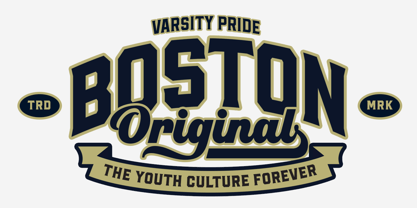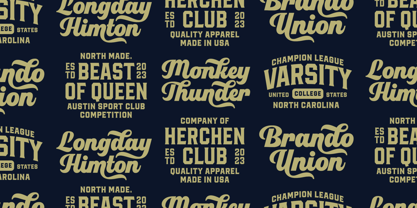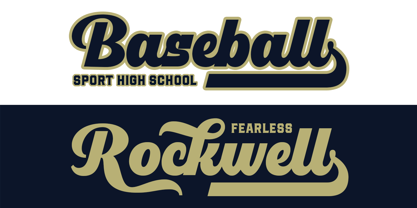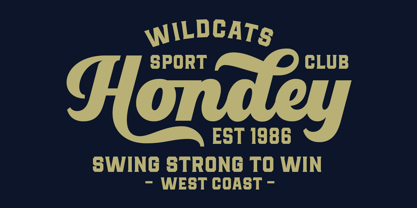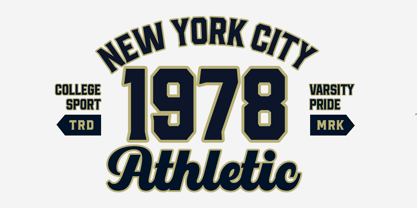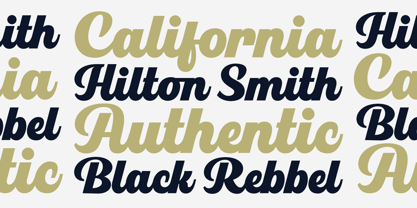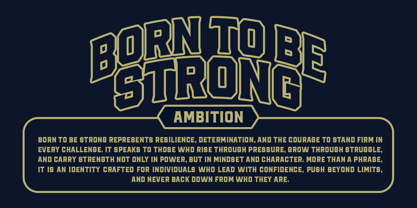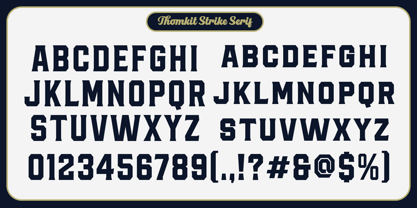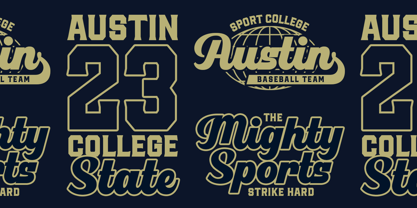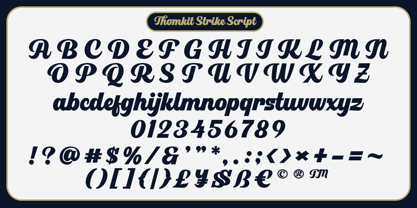
Thomkit Strike
La familia tipográfica Thomkit Strike fue diseñada por Bangkit Tri Setiadi y publicada por Blankids. Thomkit Strike contiene 2 estilos y opciones de paquete familiar. Más información sobre esta familia
Thomkit Strike is a bold and dynamic varsity font duo that combines a powerful sport serif display with a smooth, energetic script style. Inspired by classic American sports typography, college lettering, and vintage athletic branding, Thomkit Strike delivers strong visual impact with a timeless competitive spirit. Designed to stand out, the serif style features thick strokes, sharp edges, and confident proportions, making it perfect for headlines, logos, jerseys, posters, and branding that demands authority and strength. The accompanying script font adds a dynamic handwritten flair, creating a perfect contrast that brings movement, personality, and authenticity to any design. Thomkit Strike is ideal for sports branding, varsity logos, team apparel, streetwear, badges, packaging, posters, social media graphics, and retro inspired designs. Whether you’re working on football, basketball, baseball themes, or modern lifestyle brands, this font duo offers versatility while maintaining a bold athletic identity. Carefully crafted for professional designers, Thomkit Strike works beautifully in both digital and print projects, ensuring legibility, impact, and style across all platforms. Perfect for : Sports & varsity branding Logo design & identity Apparel & merchandise Posters & headlines Badges, labels & packaging Retro & athletic-themed designs